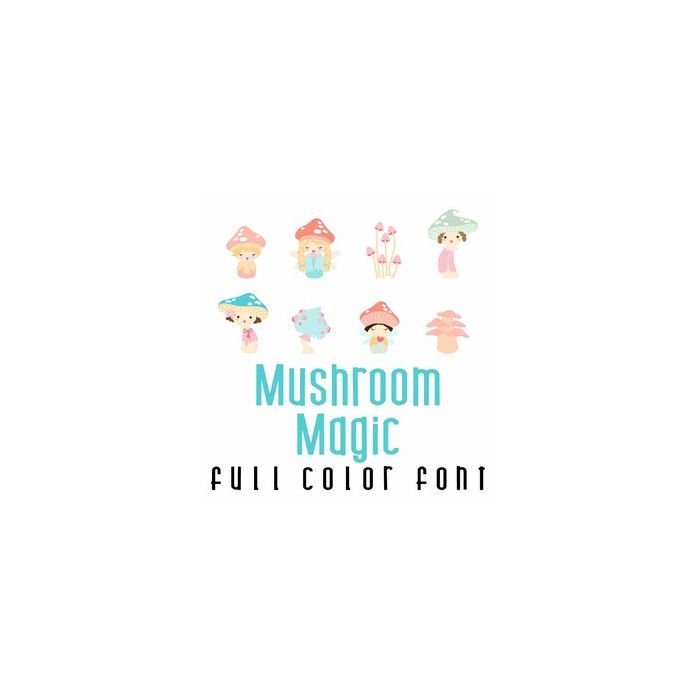
This adorable full-color font features 26 cute mushroom fairies and mushrooms. Perfect for Spring, crafts, gifts, decor, planner stickers, scrapbook pages and more!